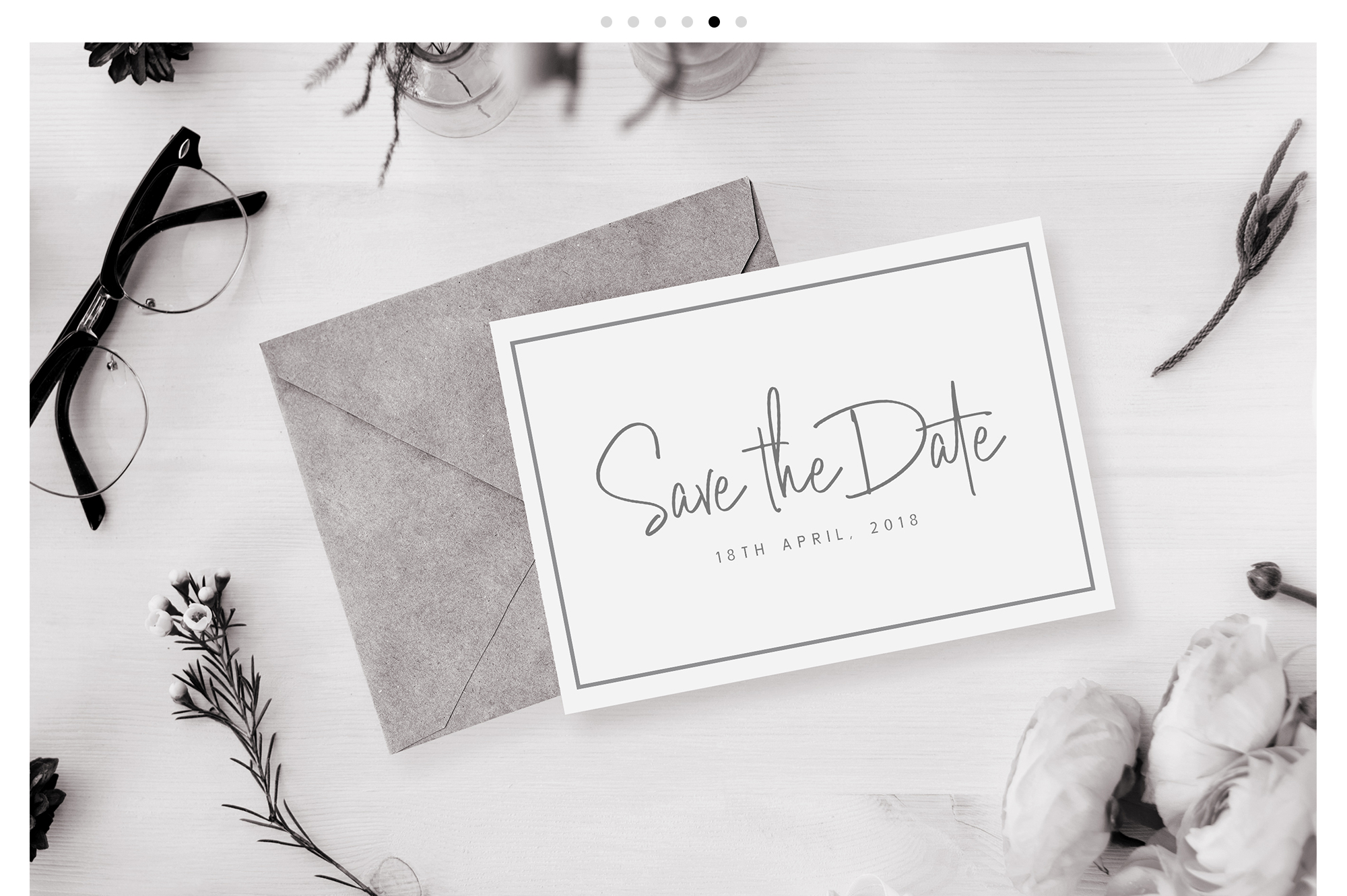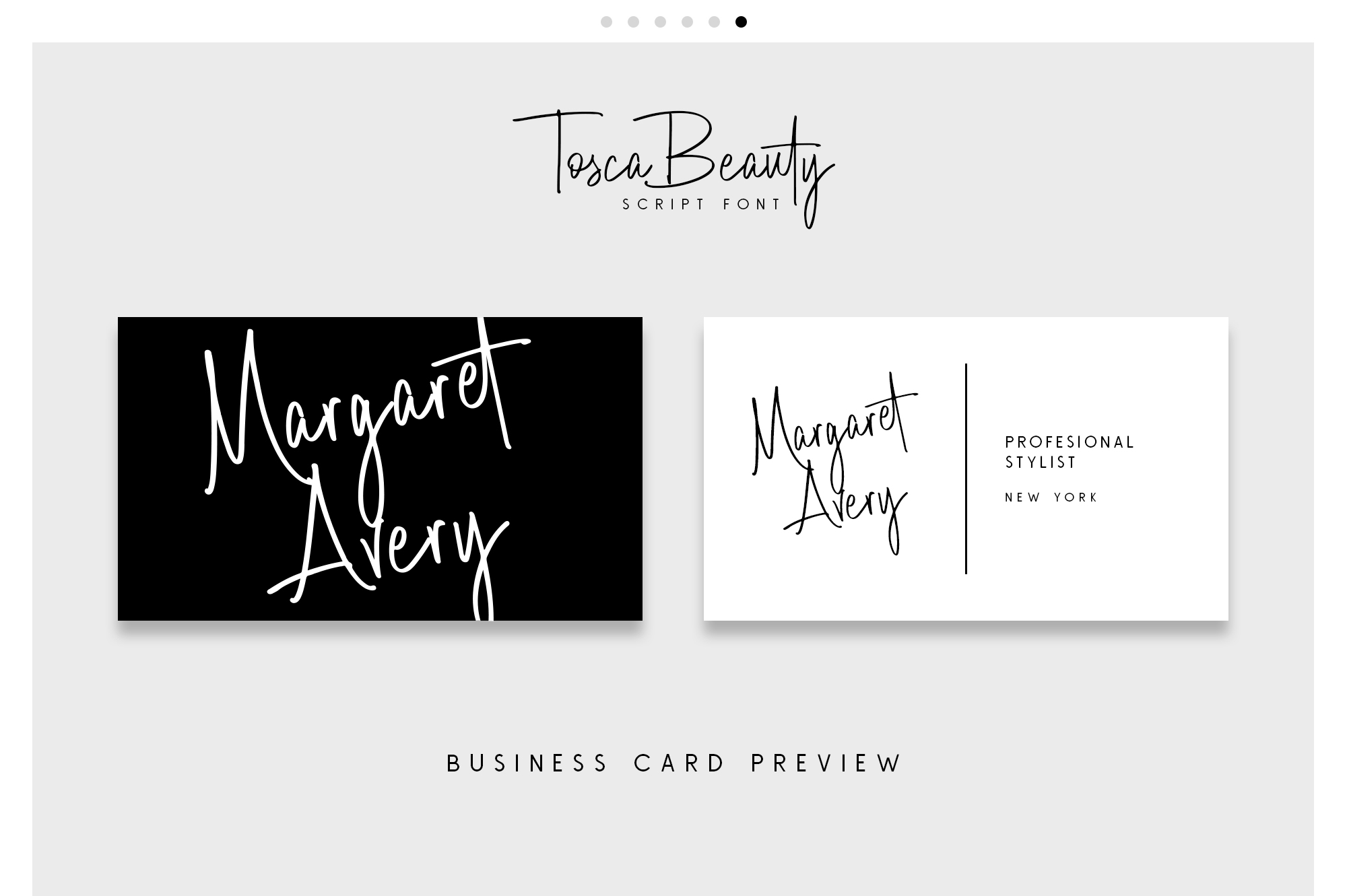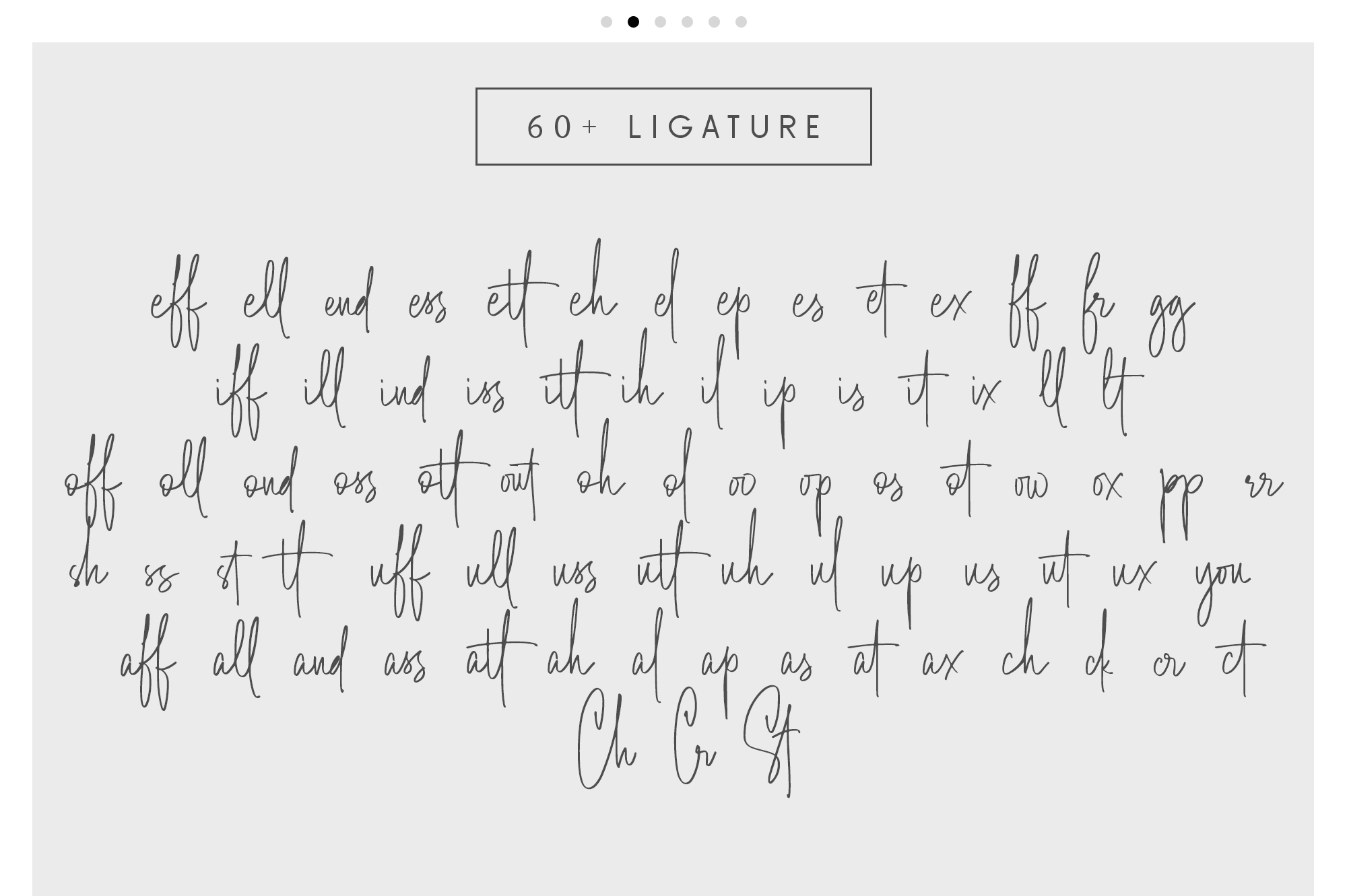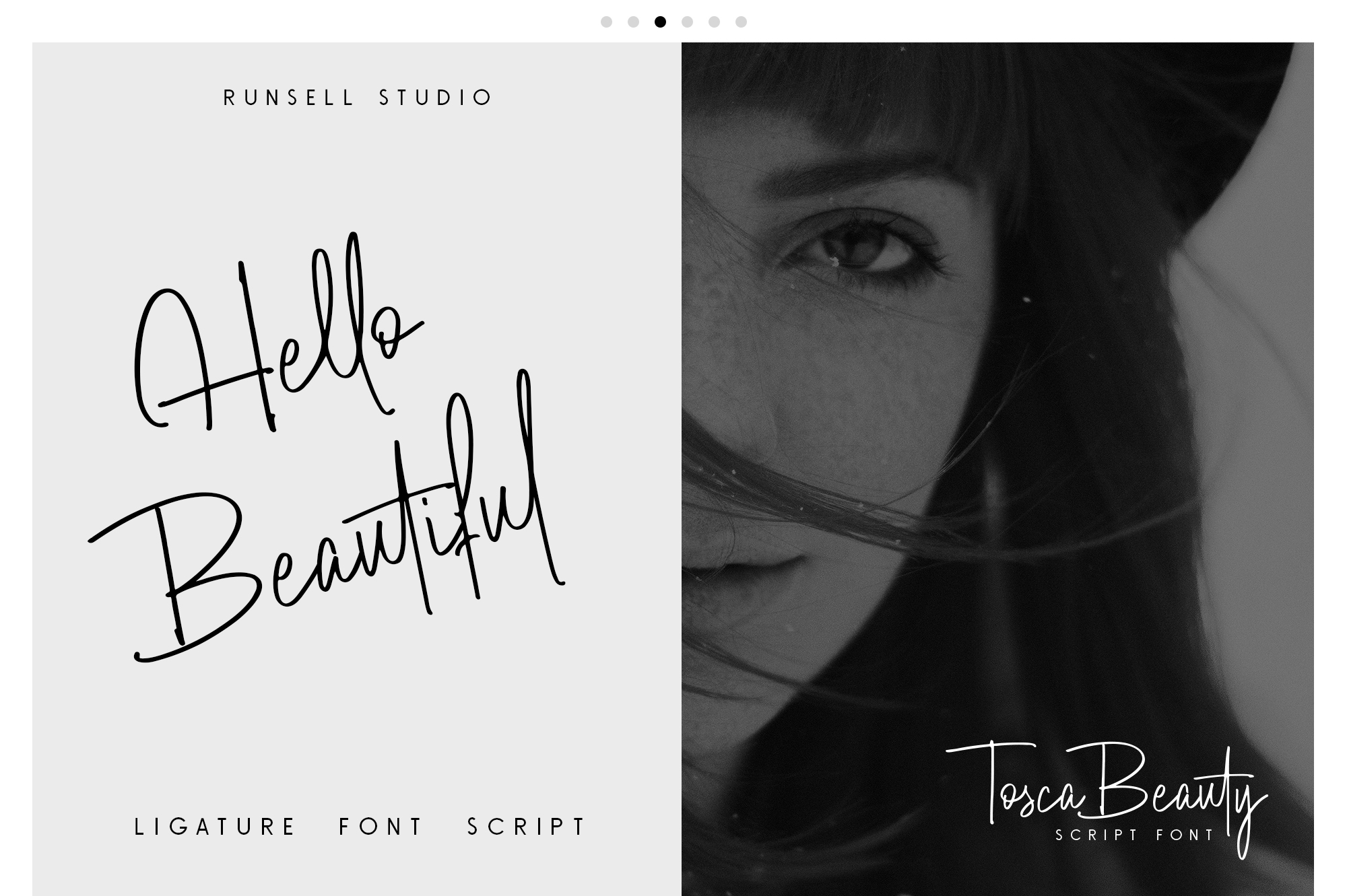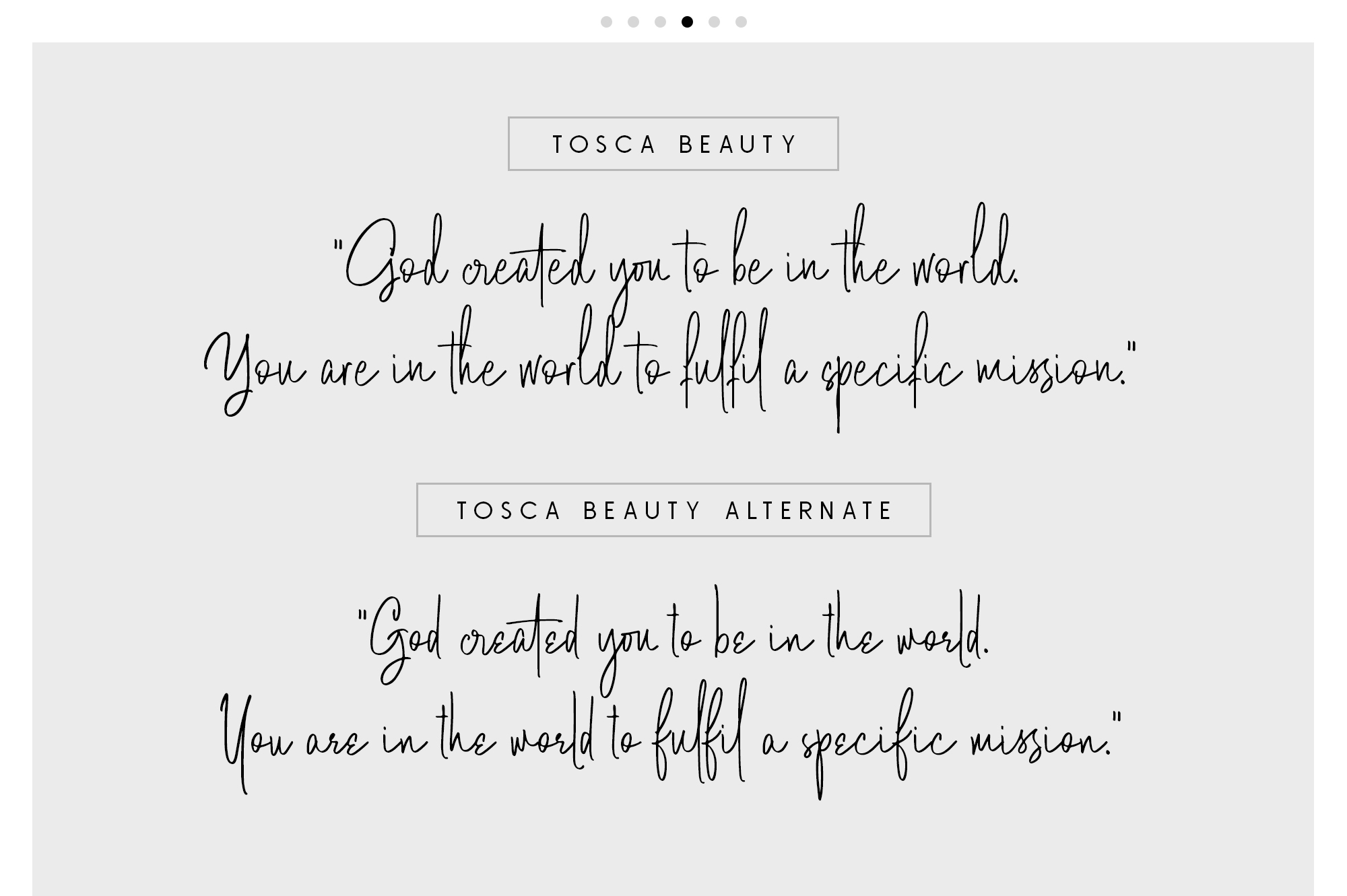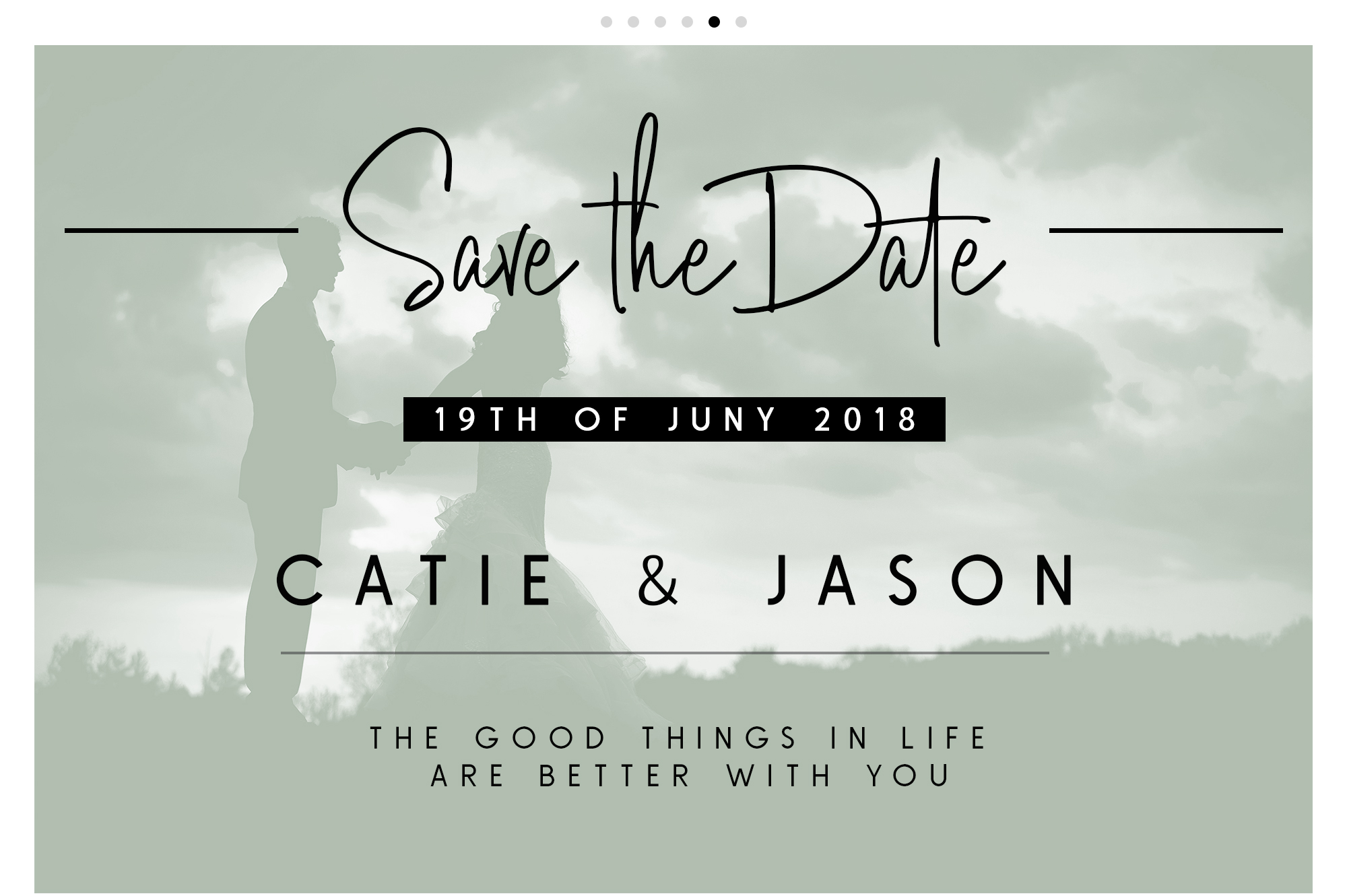
Tosca Beauty Font
Tosca Beauty is a beautiful new script font from Runsell Studio; this elegant signature font is apt at making designs look authentic and wholly handwritten. Crafted for use in brandable projects!